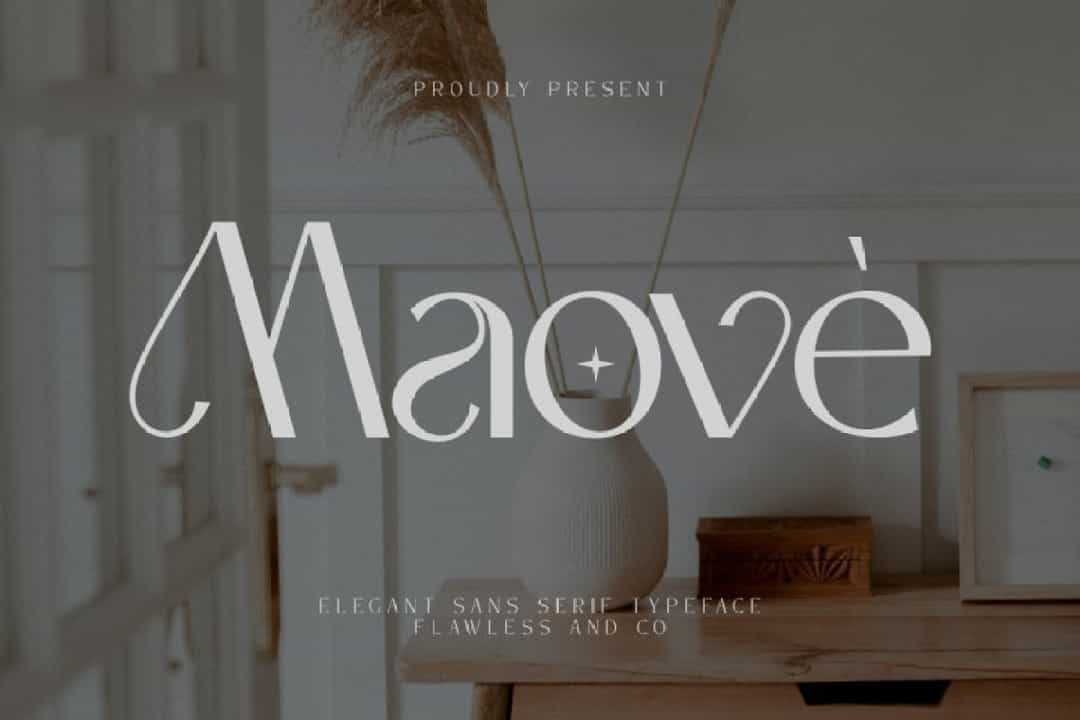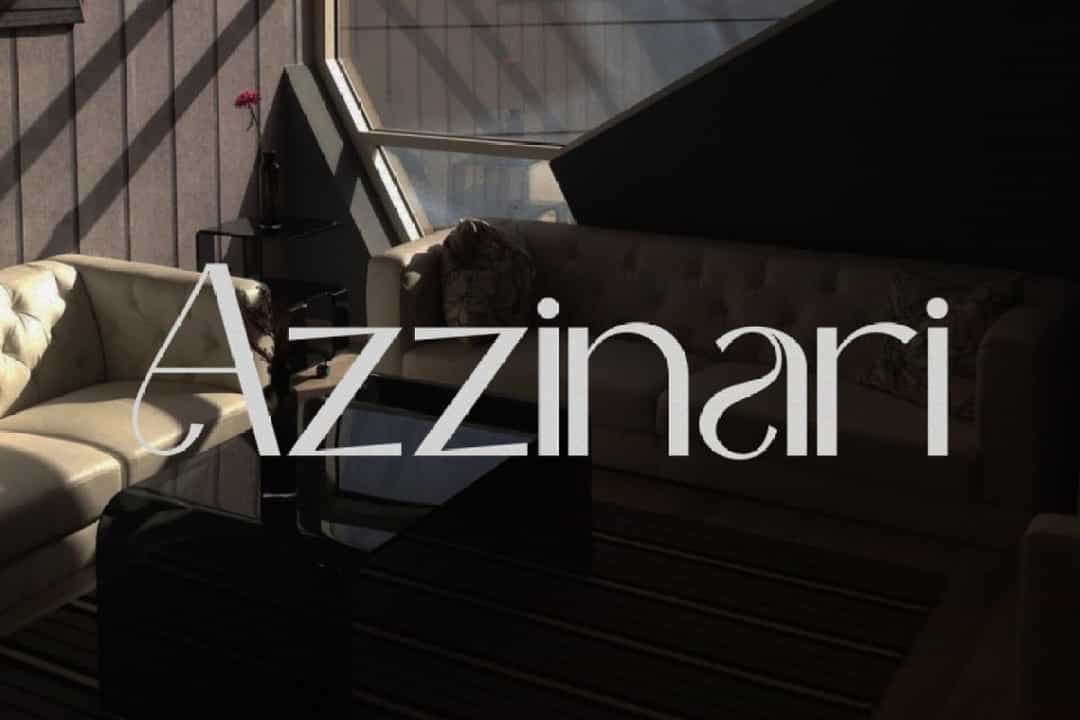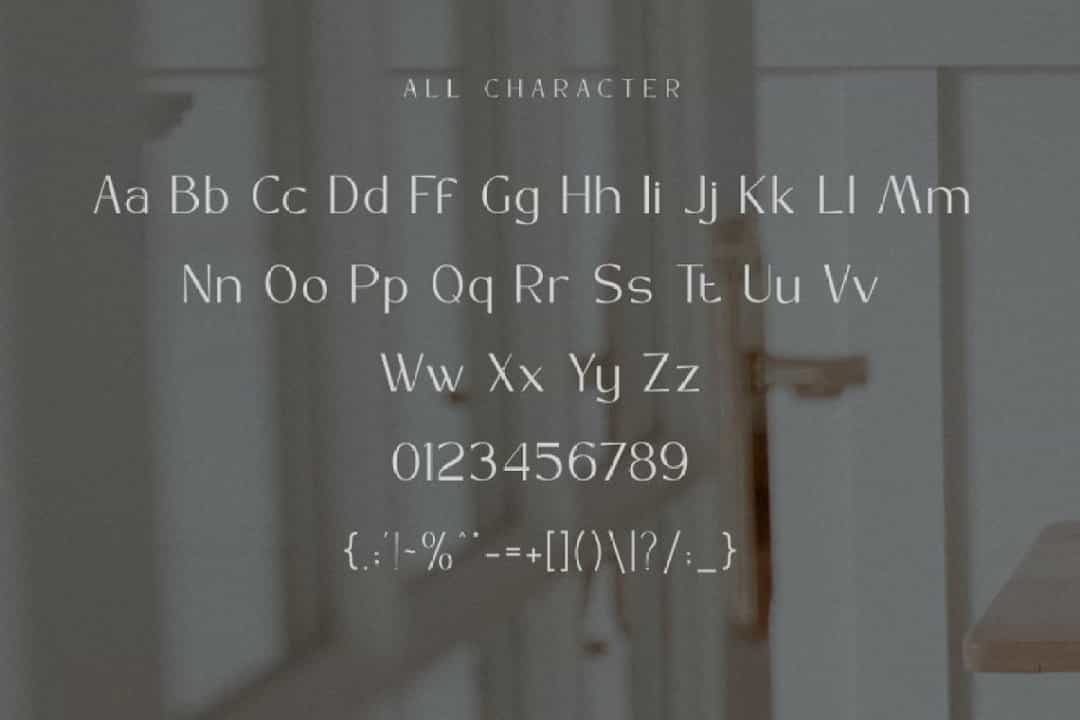
“Maove” – Modern Elegant Sans Serif Font. Discover the ultimate in modern sophistication with “Maove”, an eye-catching sans serif font which blends contemporary design with an extensive range of alternate characters and ligatures to enhance creativity. Known for its elegant lines, elegant character and meticulous attention to details, “Maove” expresses timeless elegance and sophistication in every detail.